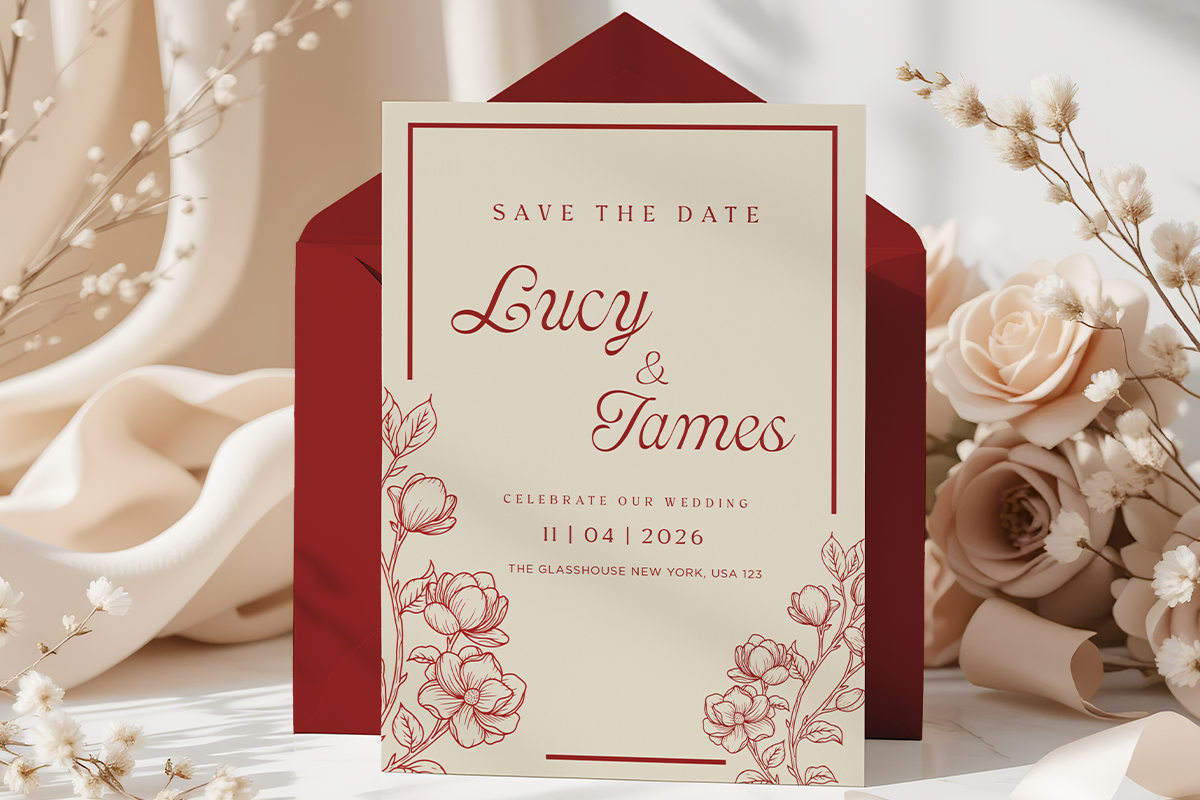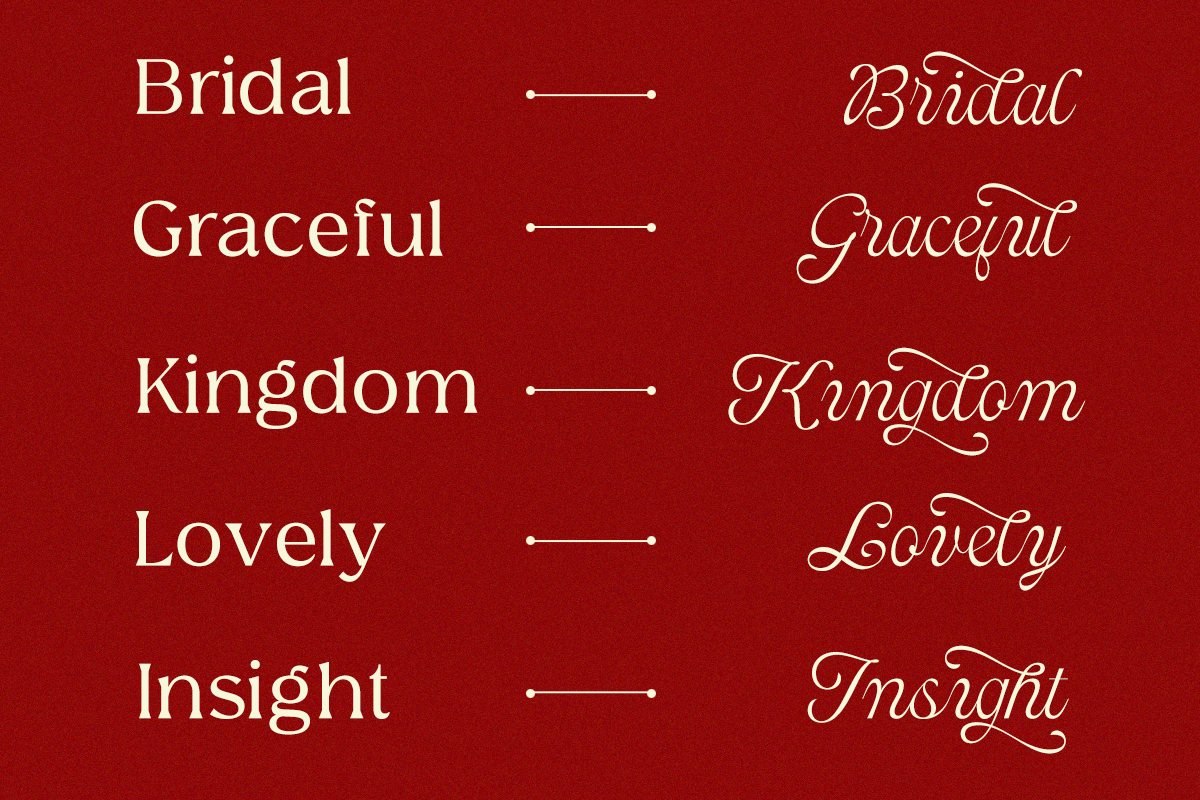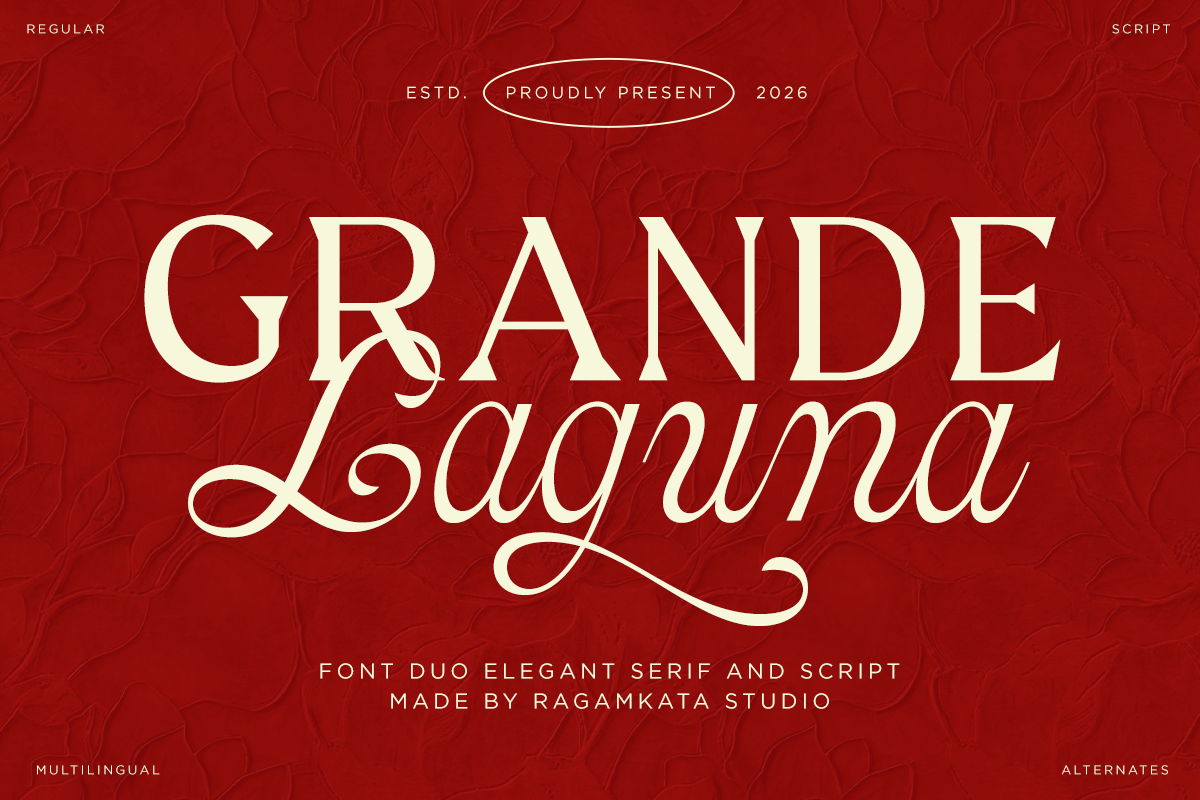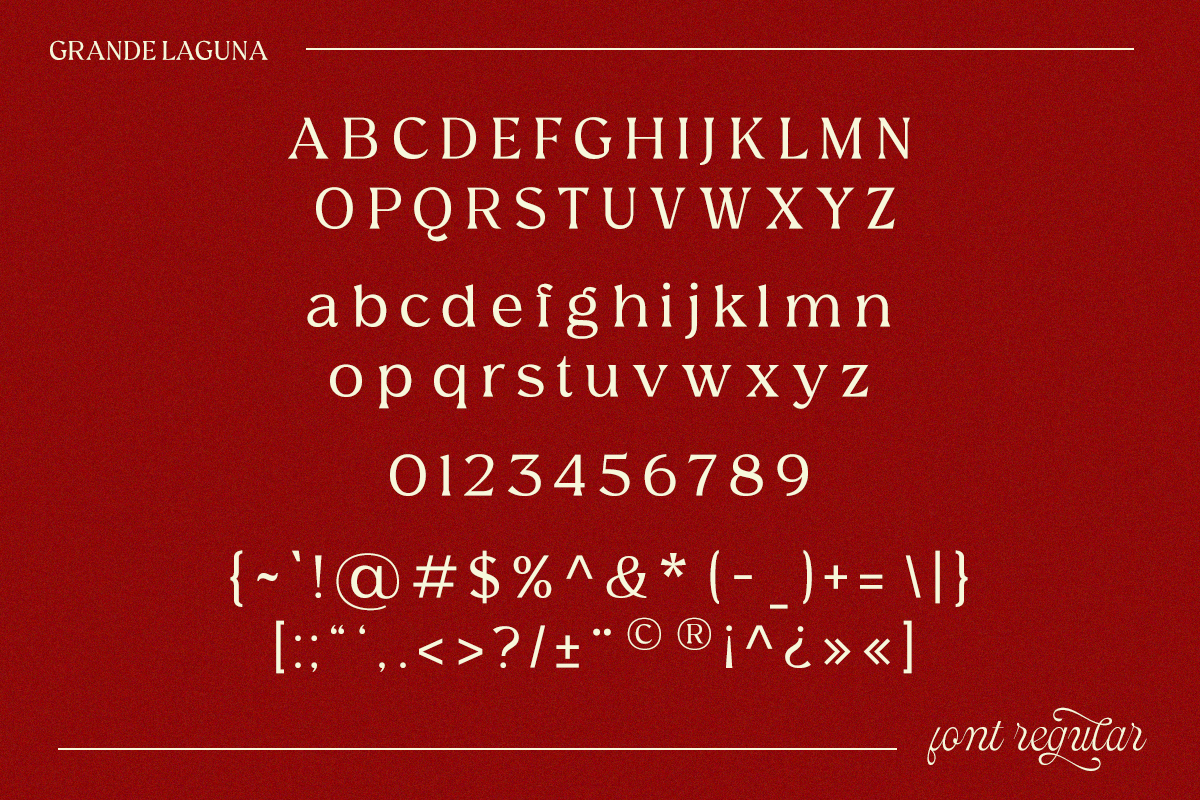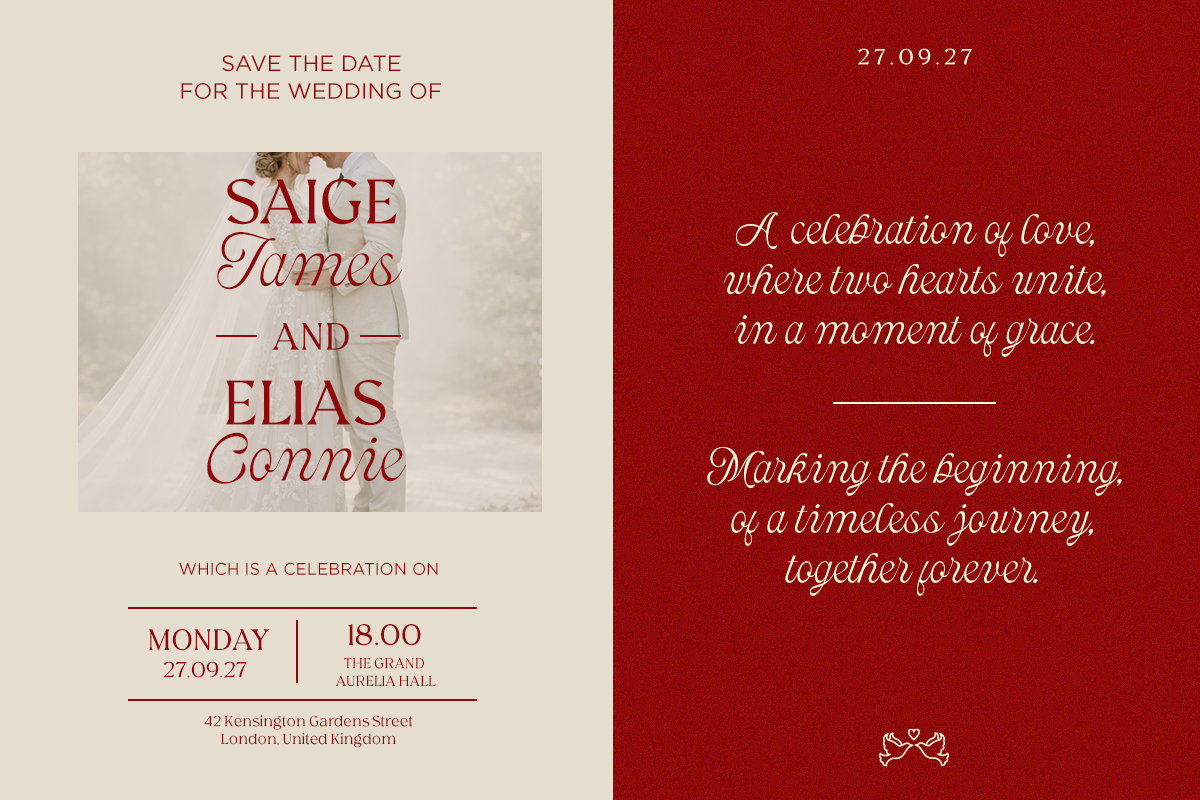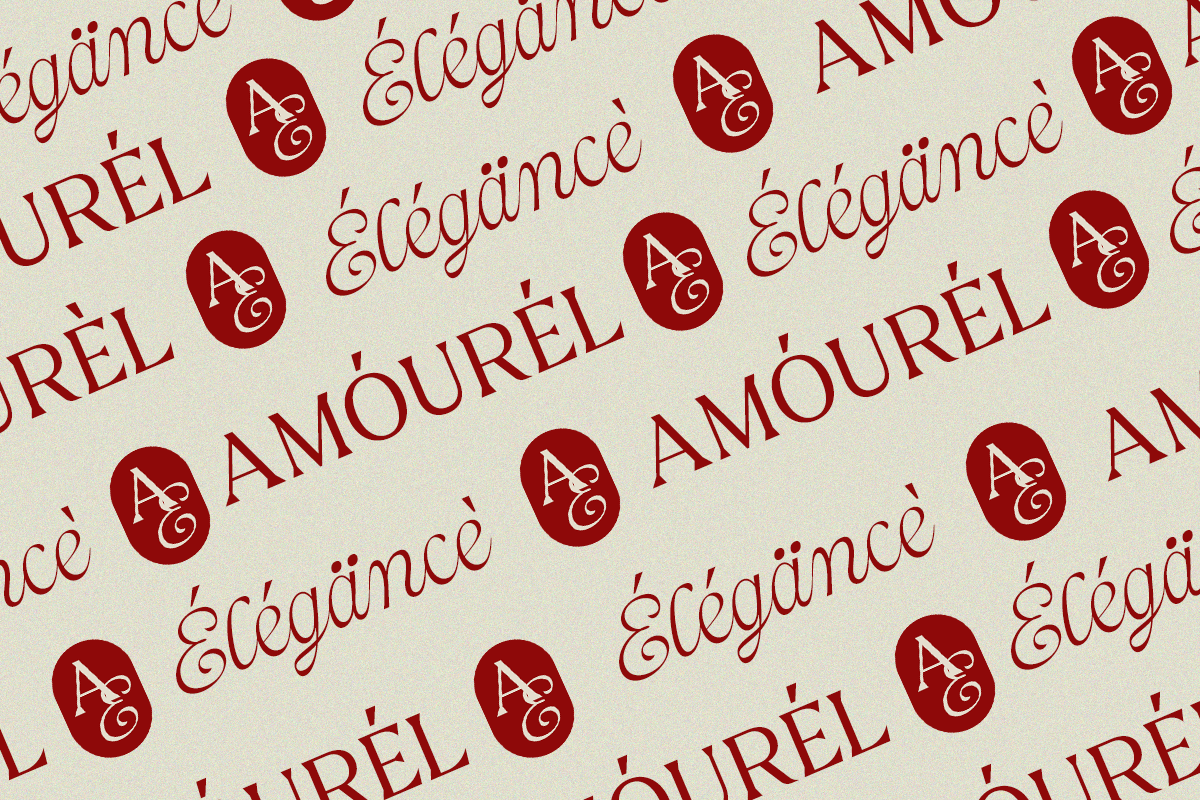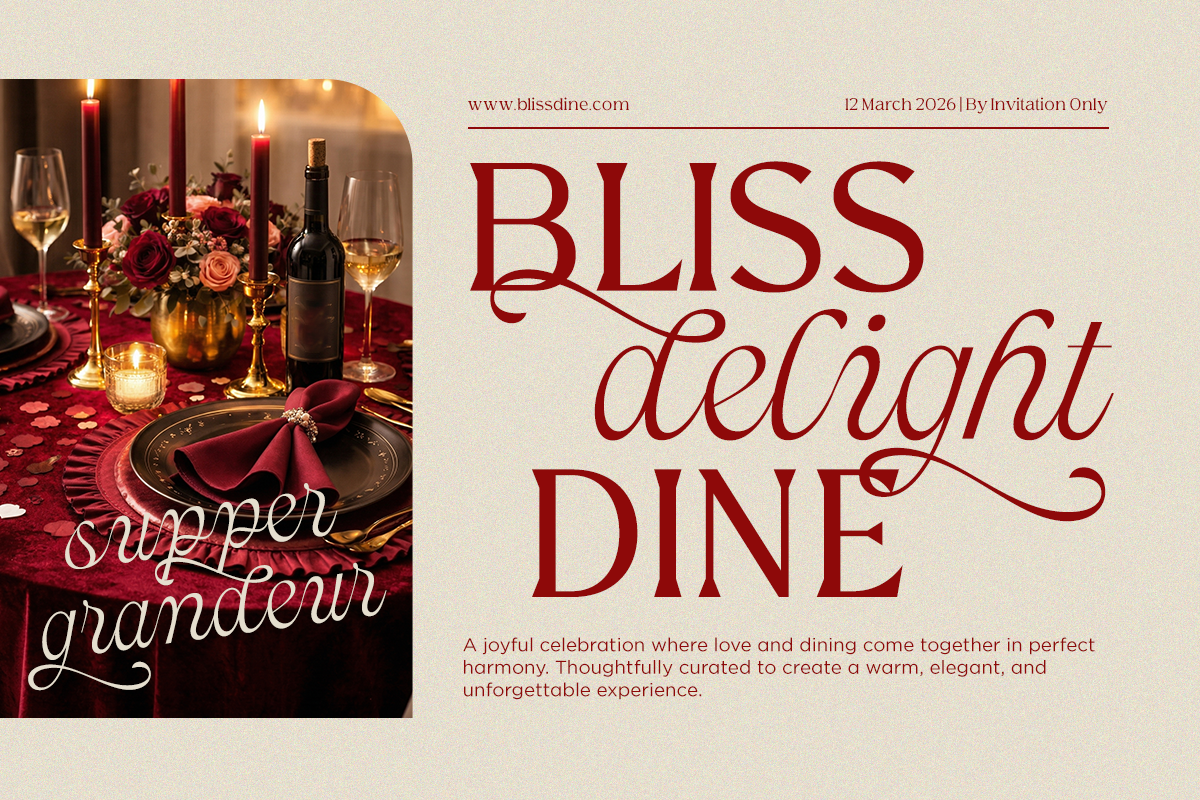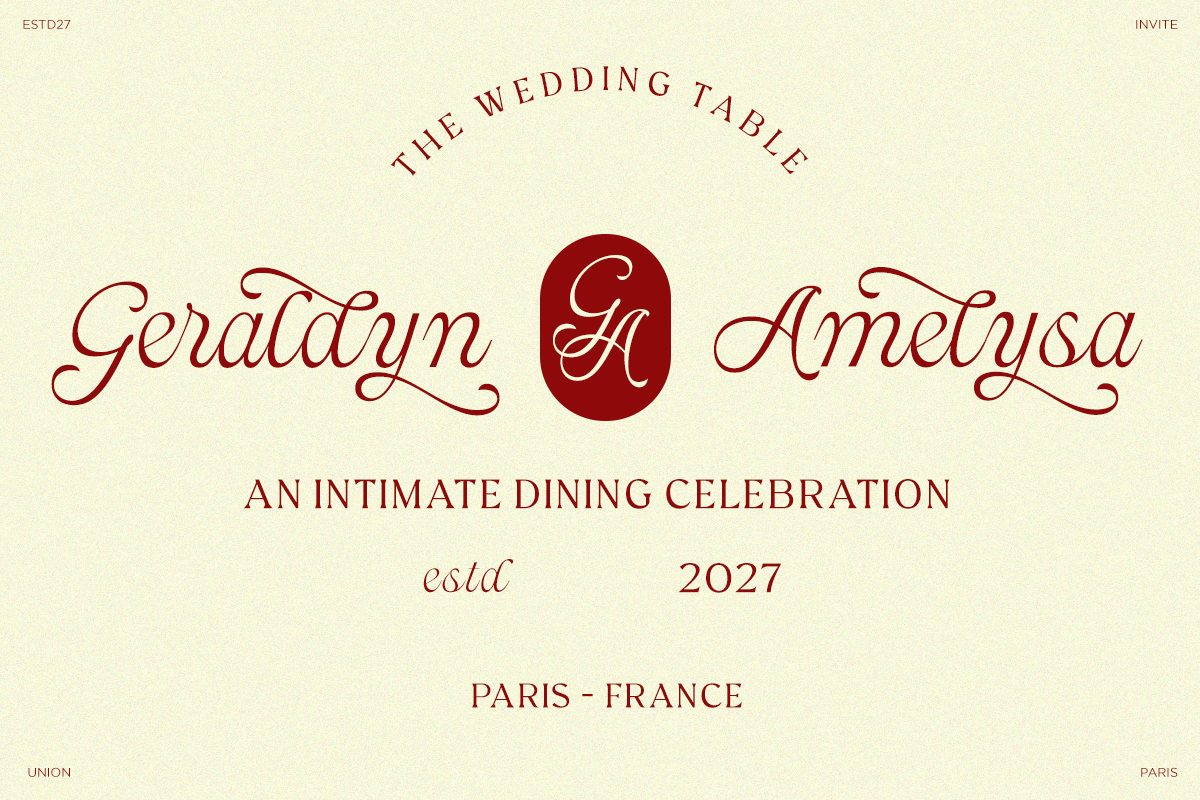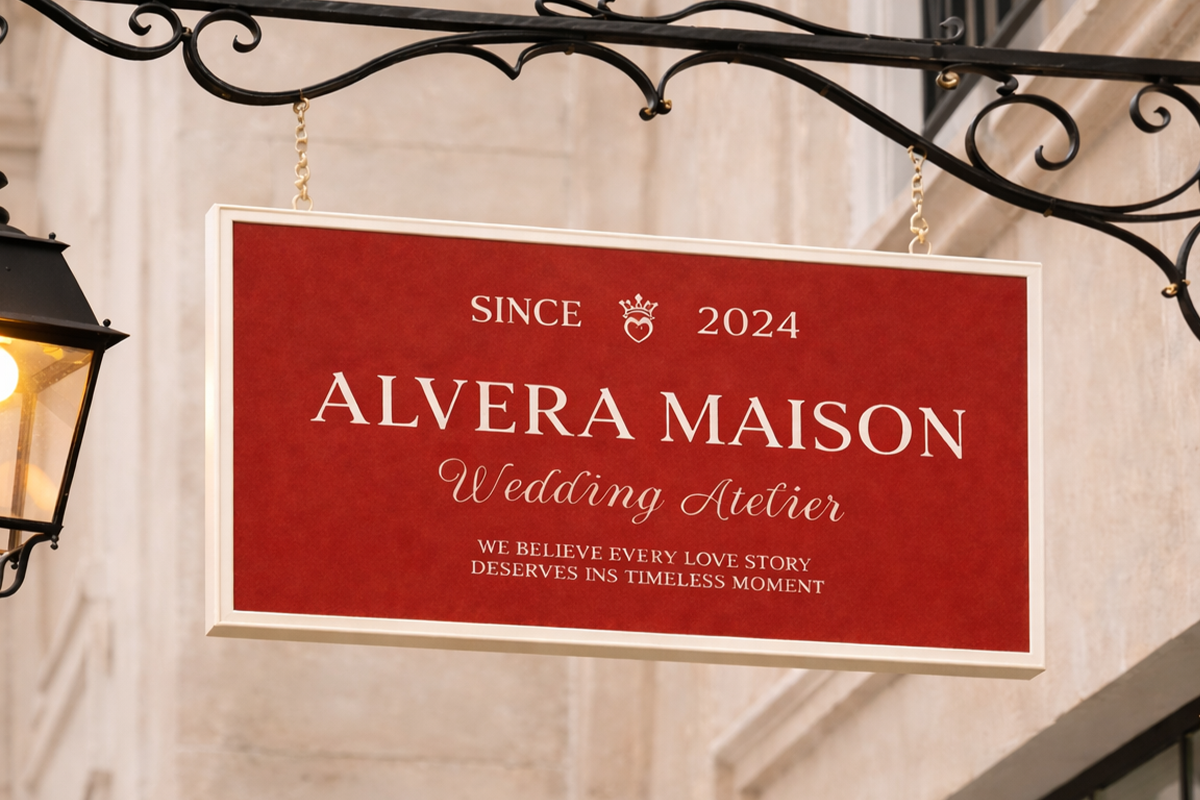
Grande Laguna – Elegant Font Duo
Grande Laguna is an elegant font duo that beautifully blends a refined serif with a graceful script. Designed to create harmony between structure and fluidity, it delivers a luxurious and timeless aesthetic that instantly elevates any design. The serif provides a strong and sophisticated foundation, while the script adds a touch of charm and expressive movement.
Crafted for versatility, Grande Laguna is perfect for branding, wedding invitations, editorial layouts, and high-end visual identities. The combination of clean serif forms and flowing script ligatures allows designers to create stunning typographic compositions with ease. Whether used together or separately, both styles complement each other seamlessly.
With multilingual support and a rich set of alternates, Grande Laguna offers flexibility for global and creative use. Its elegant curves and refined details make it an excellent choice for projects that demand beauty, class, and a premium visual presence.